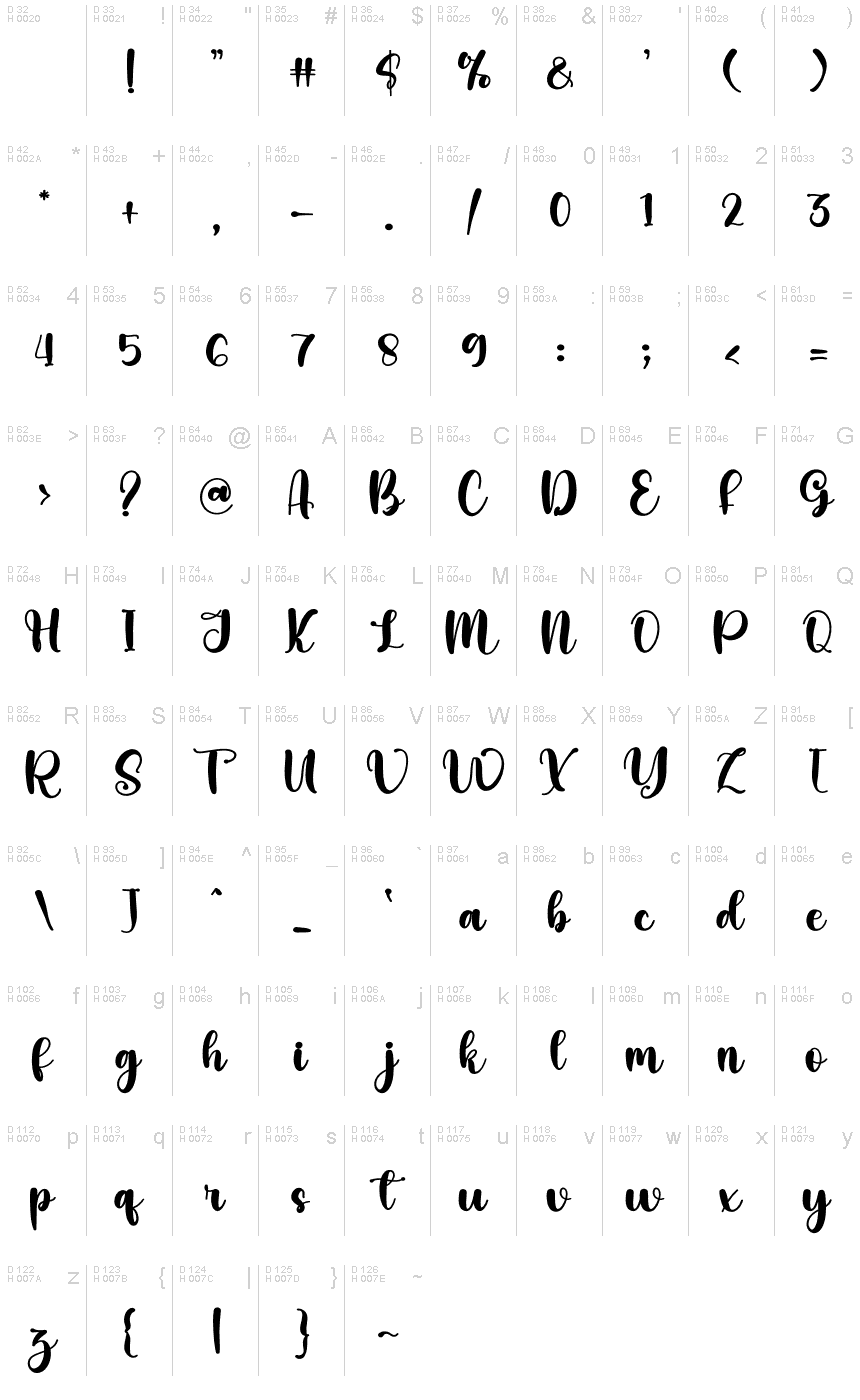
Simple October
Simple October, a creation by FreshtypeINK, brings a touch of artisanal charm to the table. The font's smooth brush style exudes an organic aesthetic that is both bold and inviting. Each stroke captures the essence of handcrafted artistry, making it an ideal choice for designs that require a personal, human touch.
The fluidity of Simple October's characters provides a laid-back yet assertive visual rhythm, which makes it incredibly versatile for varied creative projects. Whether it's for branding purposes, eye-catching social media posts, or evocative print media headlines, this font stands out with its elegant curves and robust weight.
Embrace the distinctiveness of Simple October to add warmth and character to your designs—a font that can truly transform words into visual poetry.